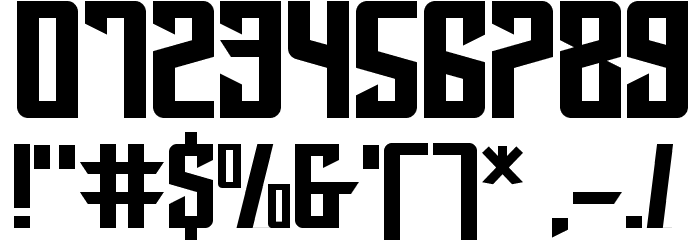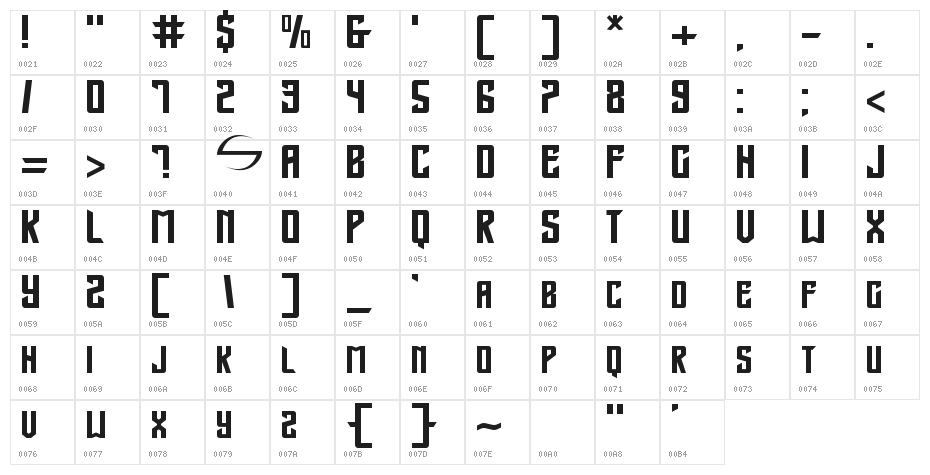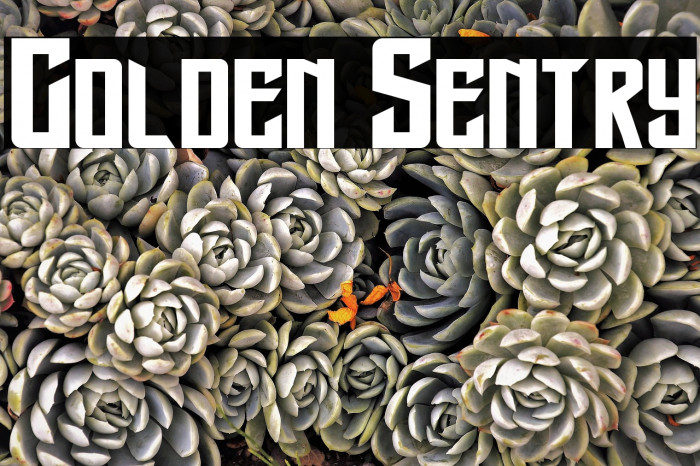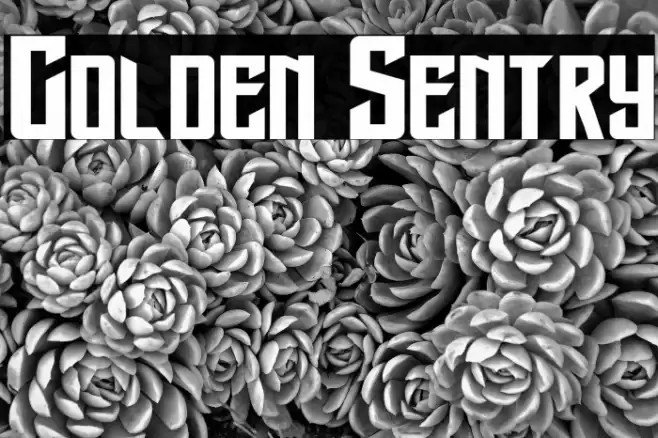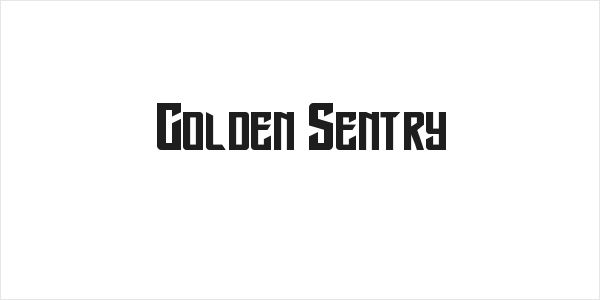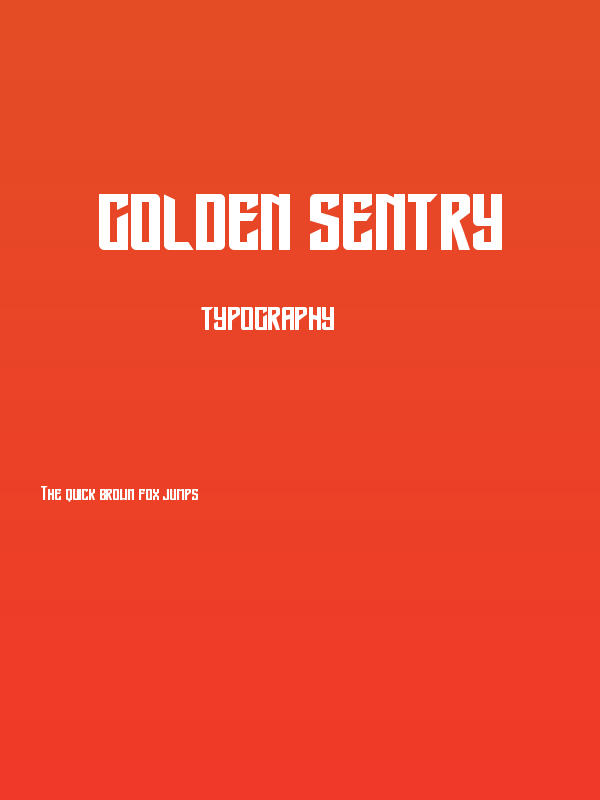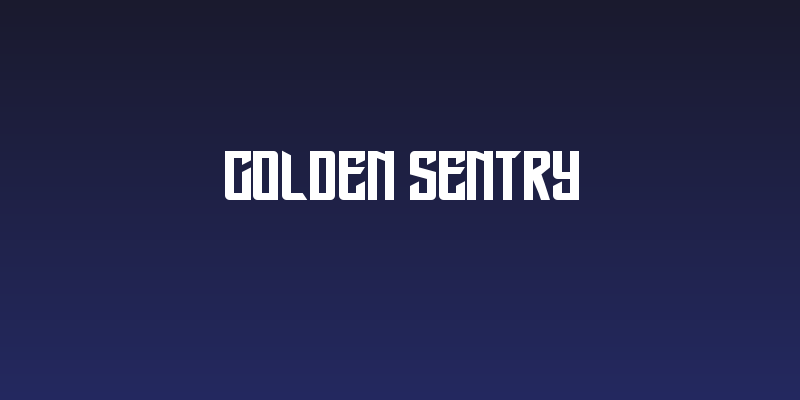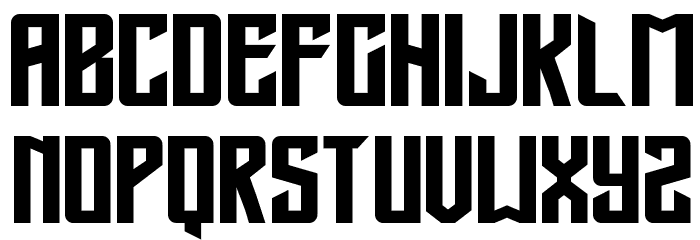
Golden Sentry Font
Golden Sentry Description
This font features a bold and geometric design with strong, angular lines and a modern aesthetic. The uppercase letters are characterized by their block-like structure, giving them a commanding presence. The lowercase letters maintain the same boldness, ensuring consistency across the typeface. The numbers are equally robust, with a distinct style that complements the alphabetic characters. Special characters are designed with the same angular and bold approach, making them stand out. This font's overall design is striking and impactful, suitable for projects that require a strong visual statement.
| Proposed Projects | Ideal for branding, posters, headlines, and any project needing a strong visual impact. |